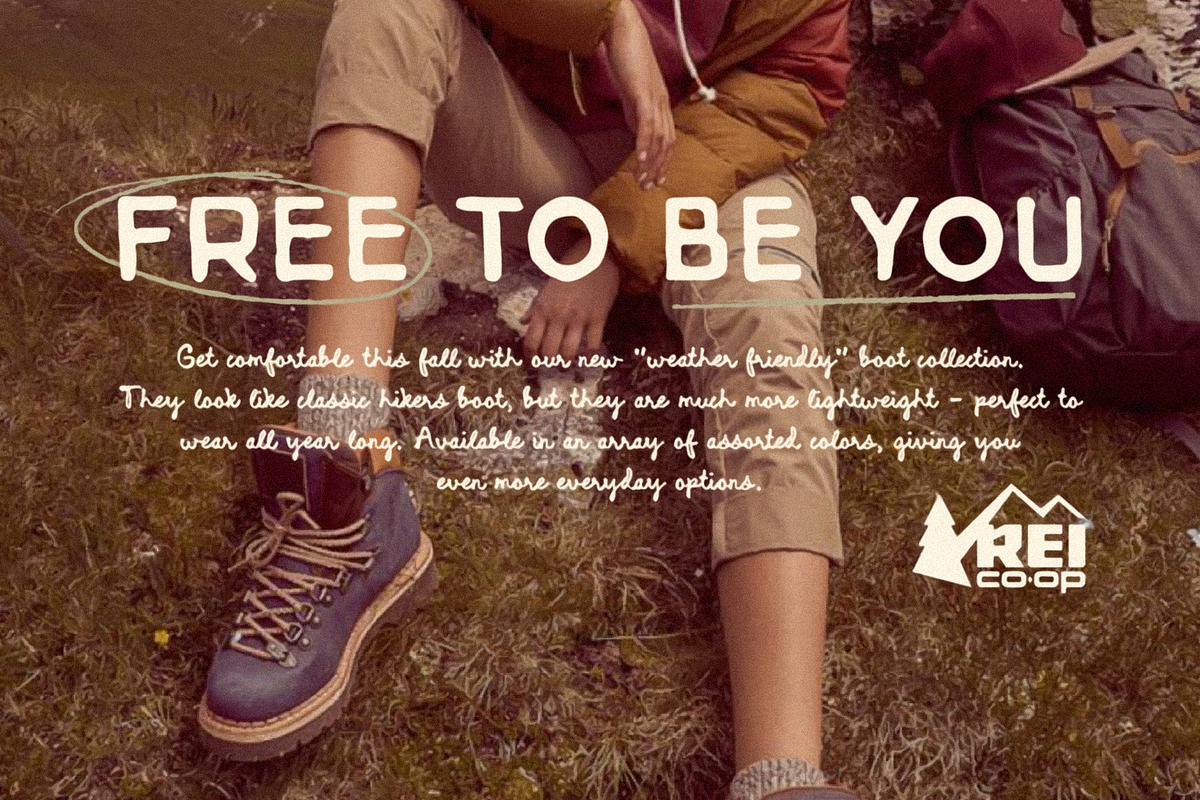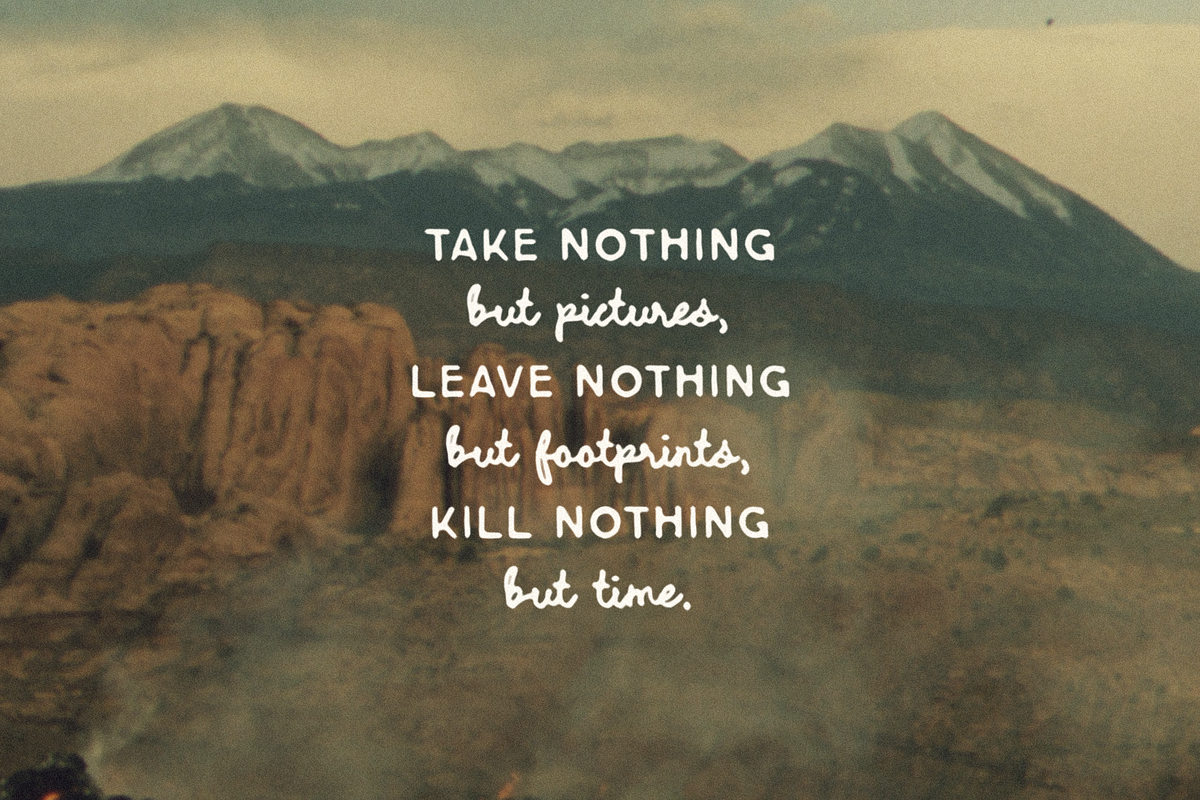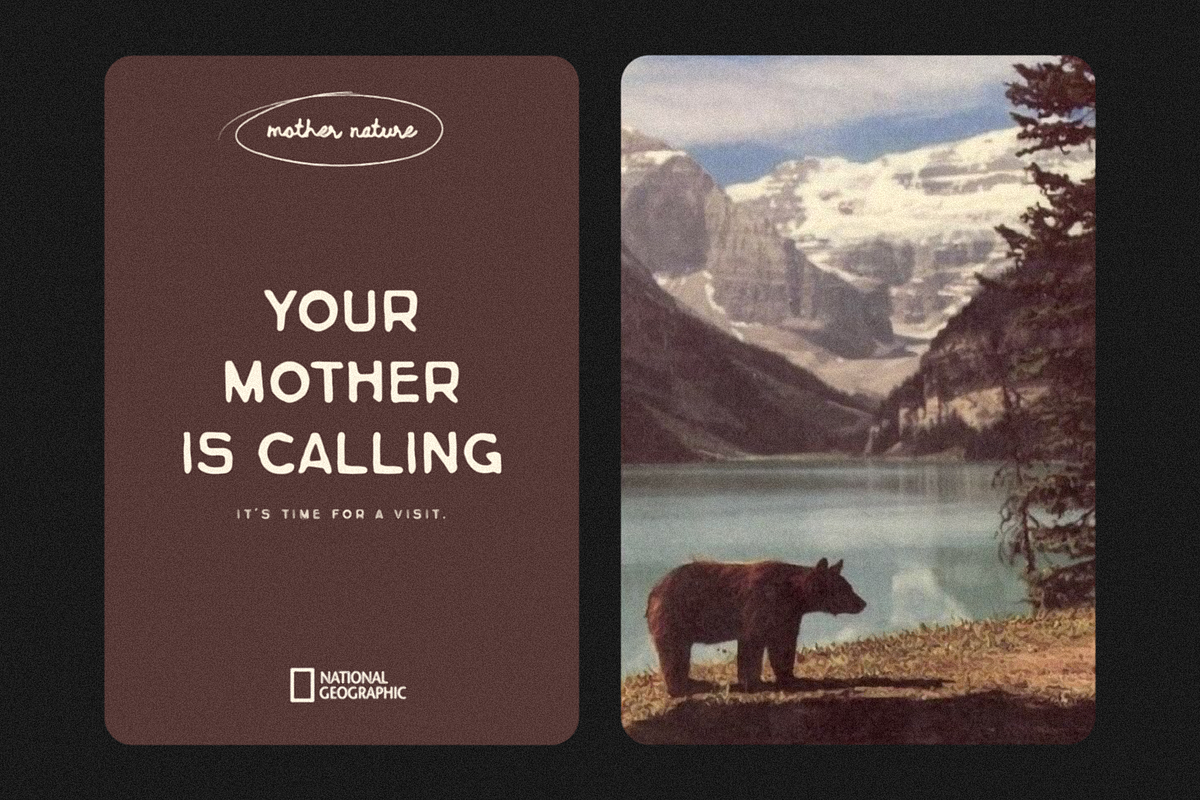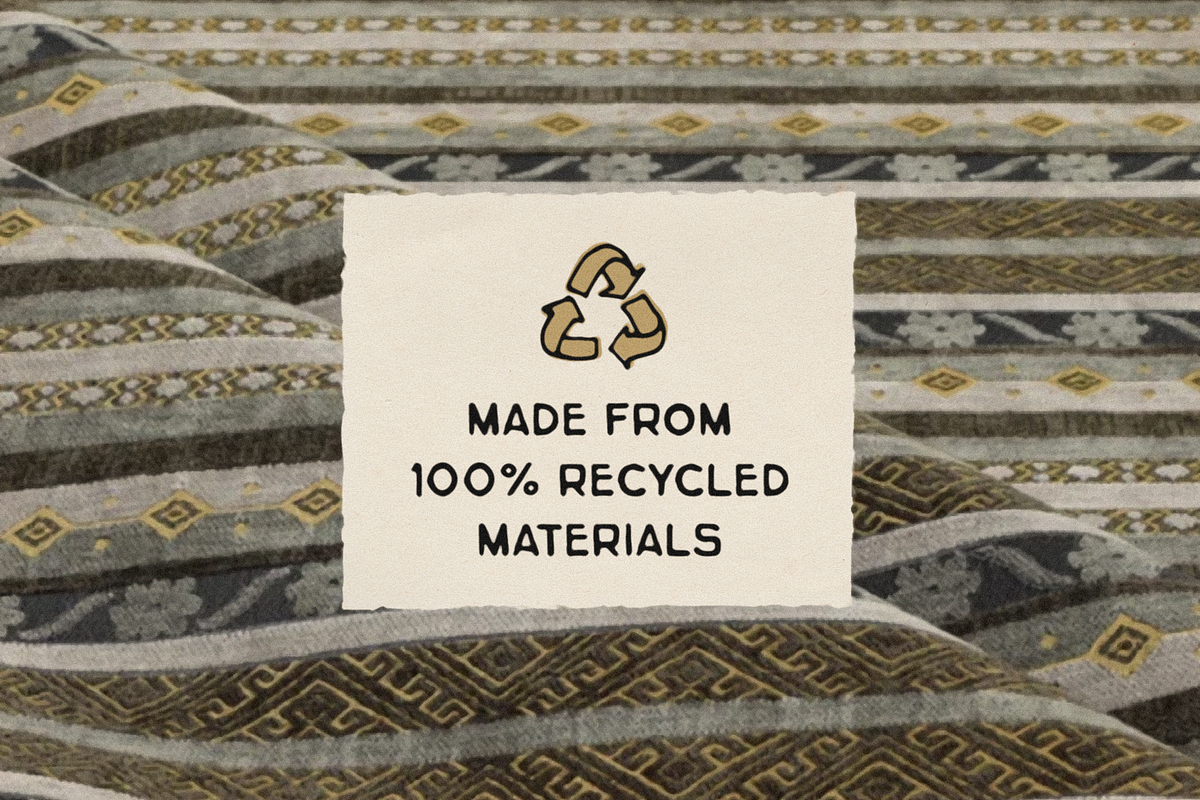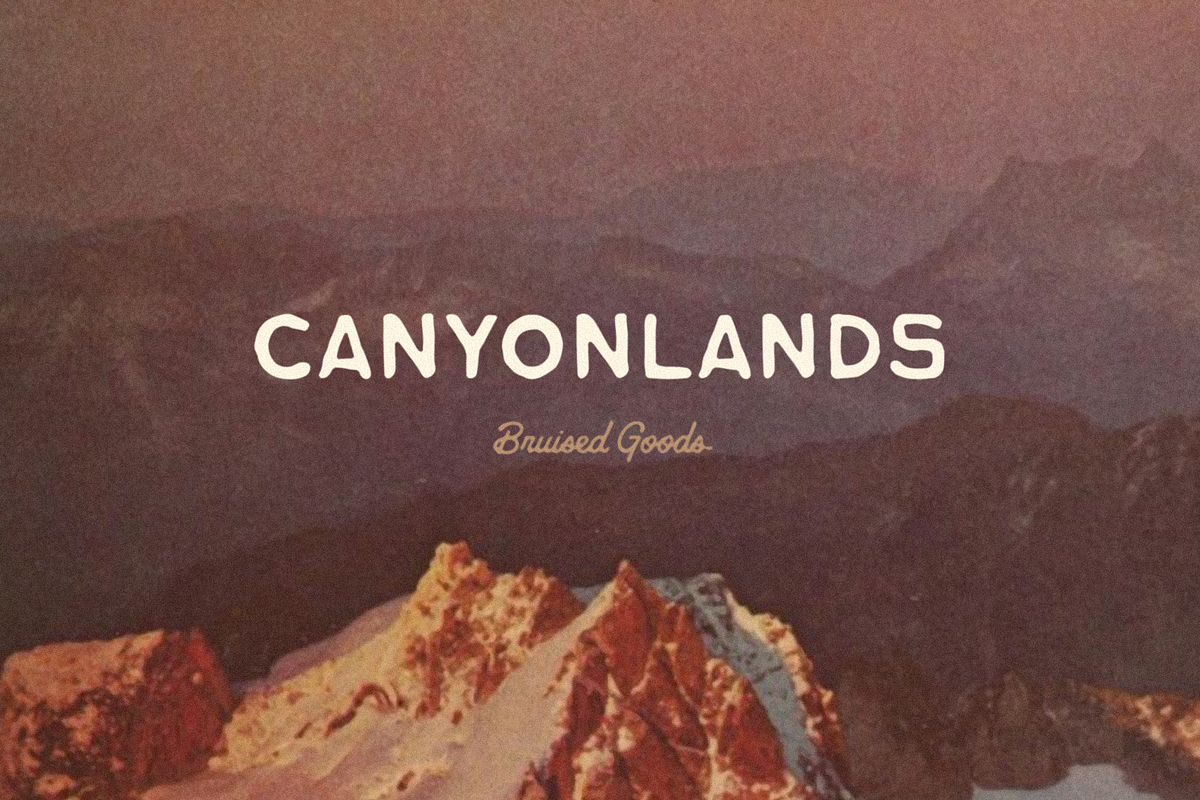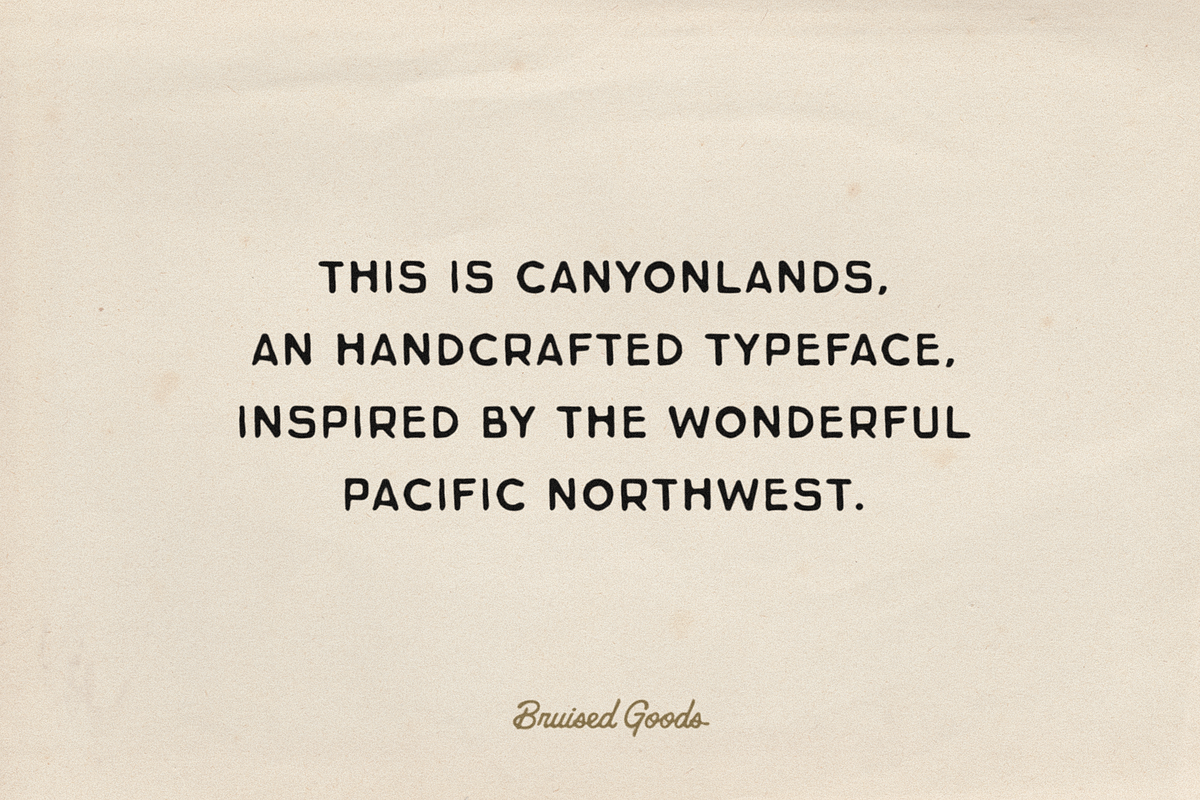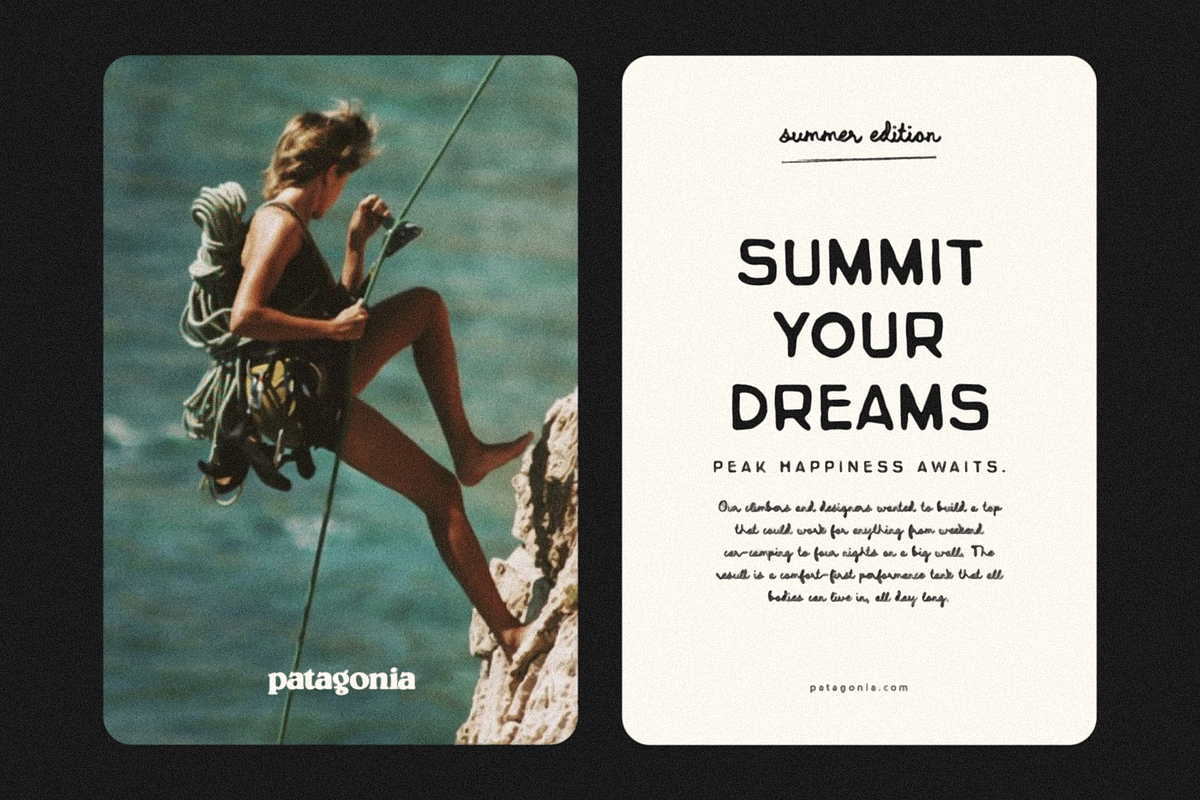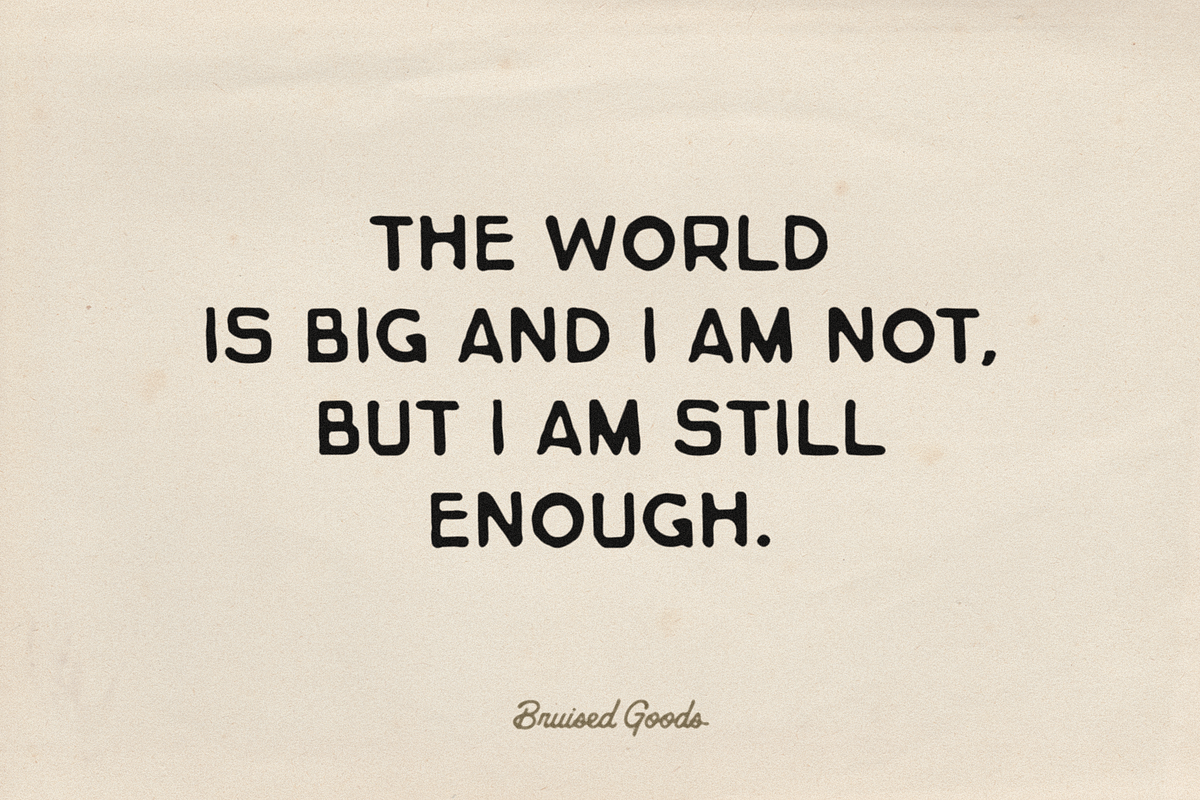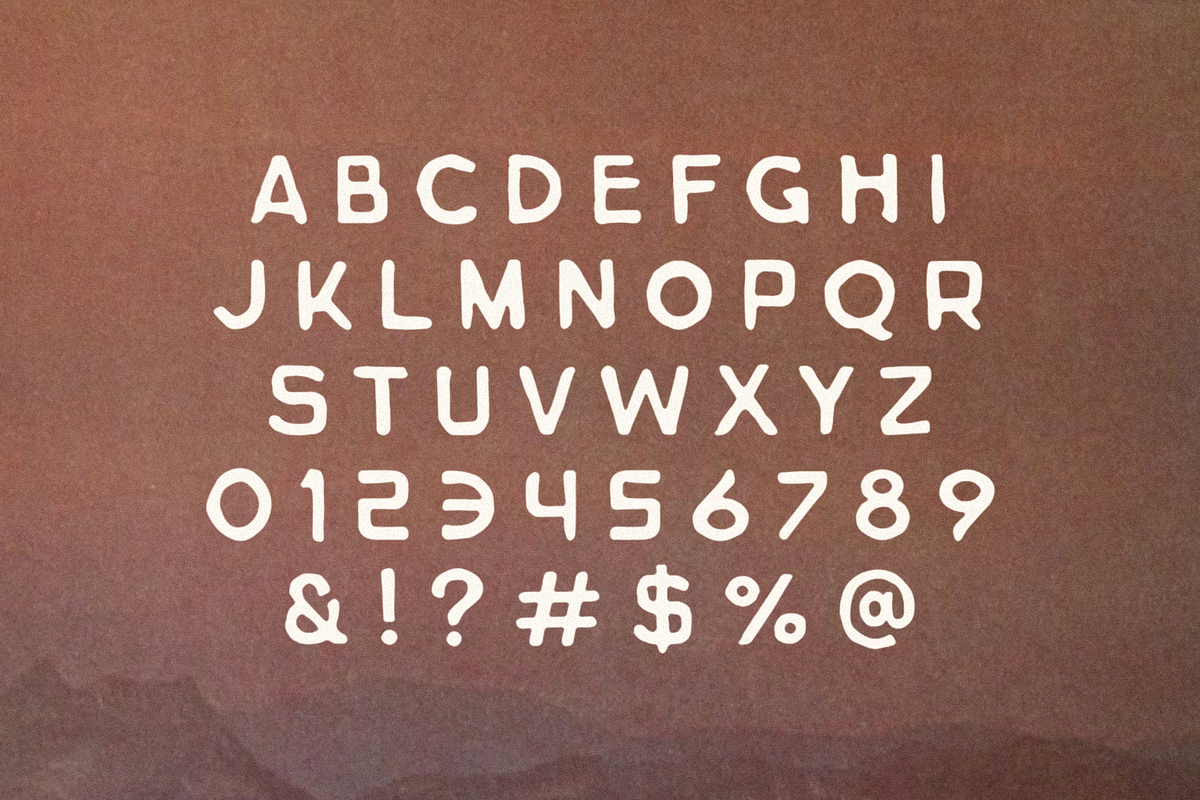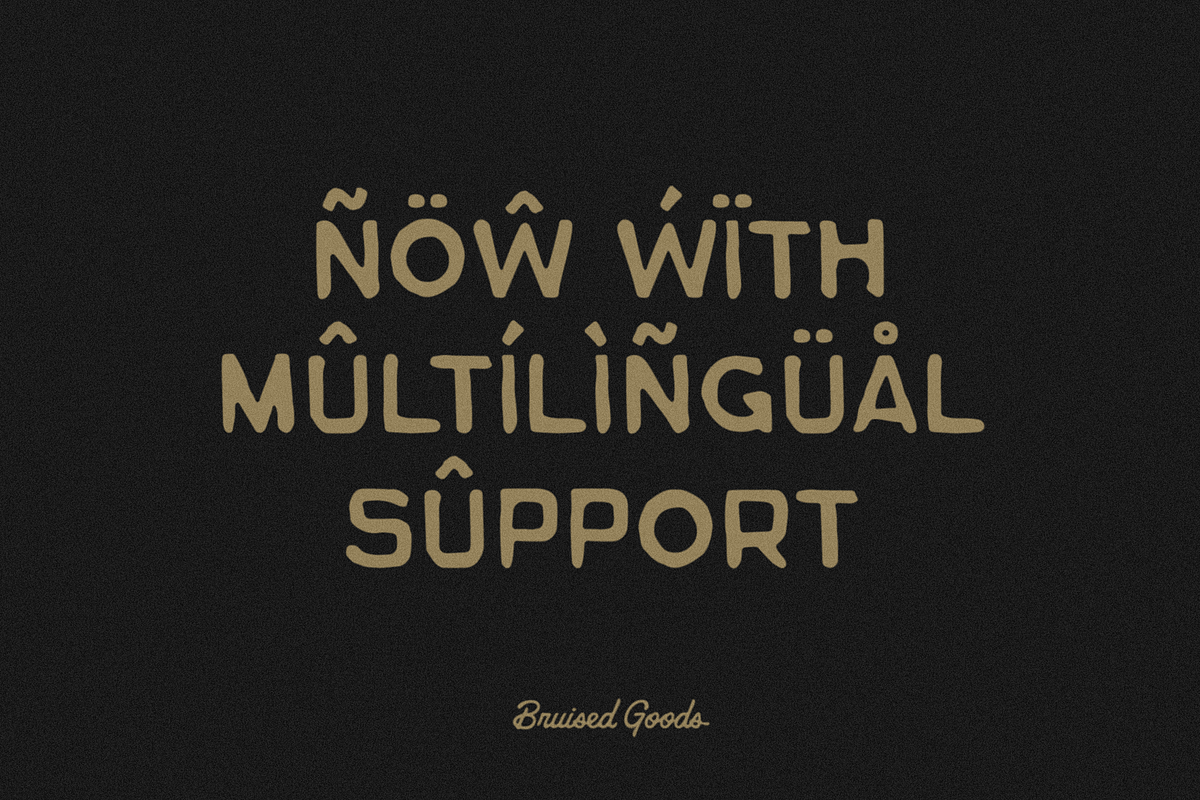
Canyonlands
CANYONLANDS – A handcrafted font duo, inspired by the wonderful Pacific Northwest. Proudly made by Bruised Goods in Humboldt County, California.
- 144 Glyphs Total: All Uppercase, Numbers, Symbols, Punctuation.